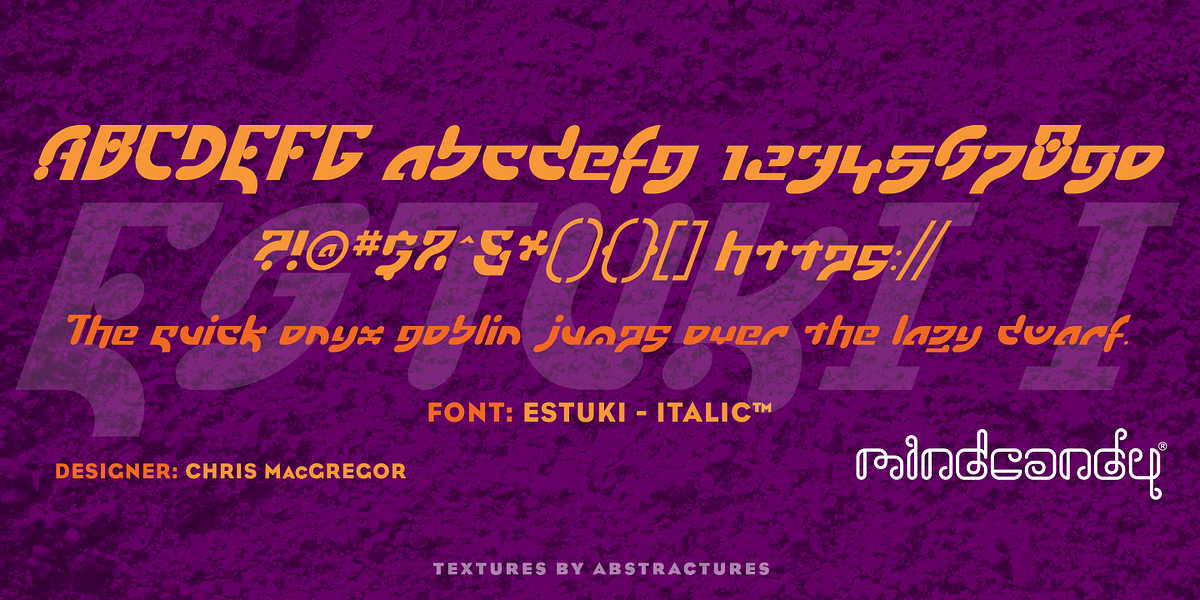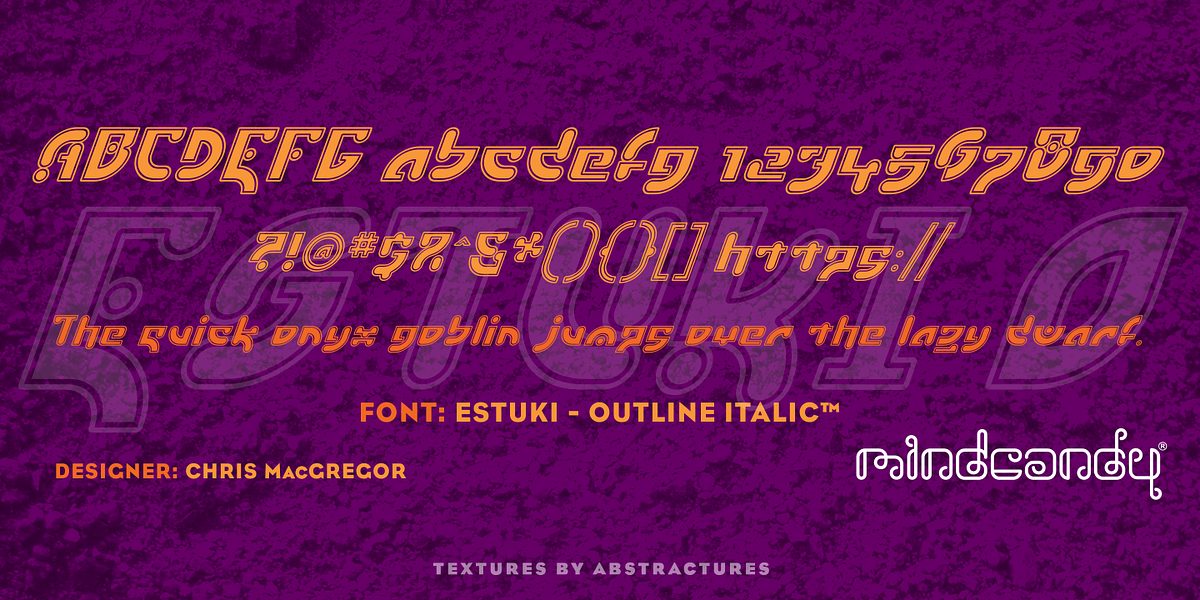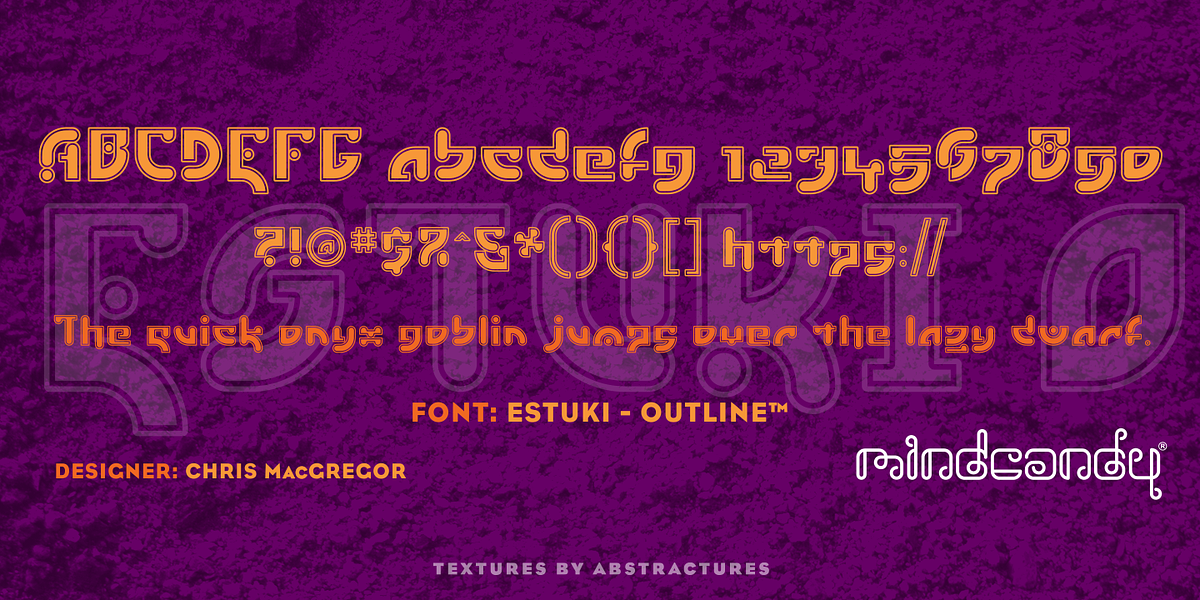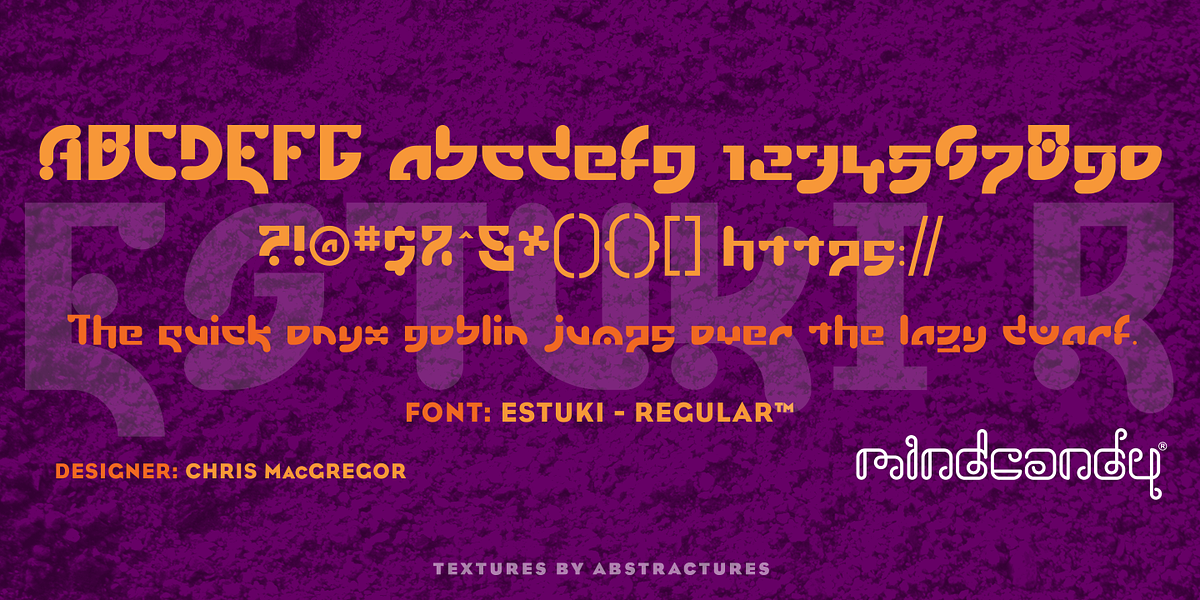
Estuki™
This display font features a bold and playful personality, ideal for eye-catching headlines, branding elements, and posters. Its futuristic outline style evokes a sense of sci-fi adventure.